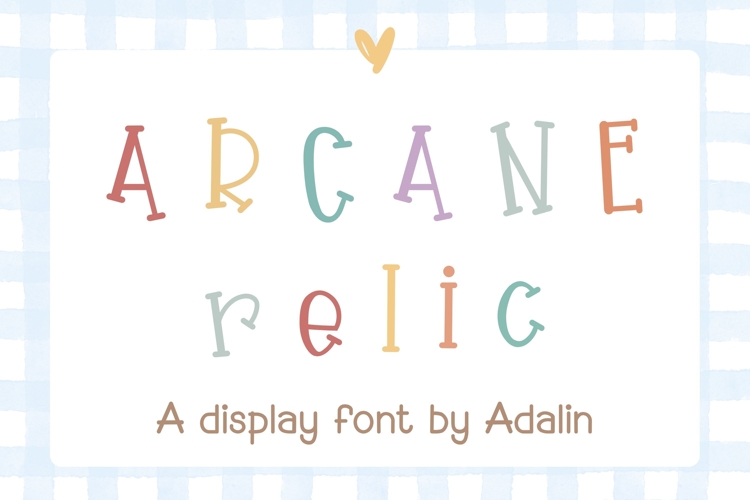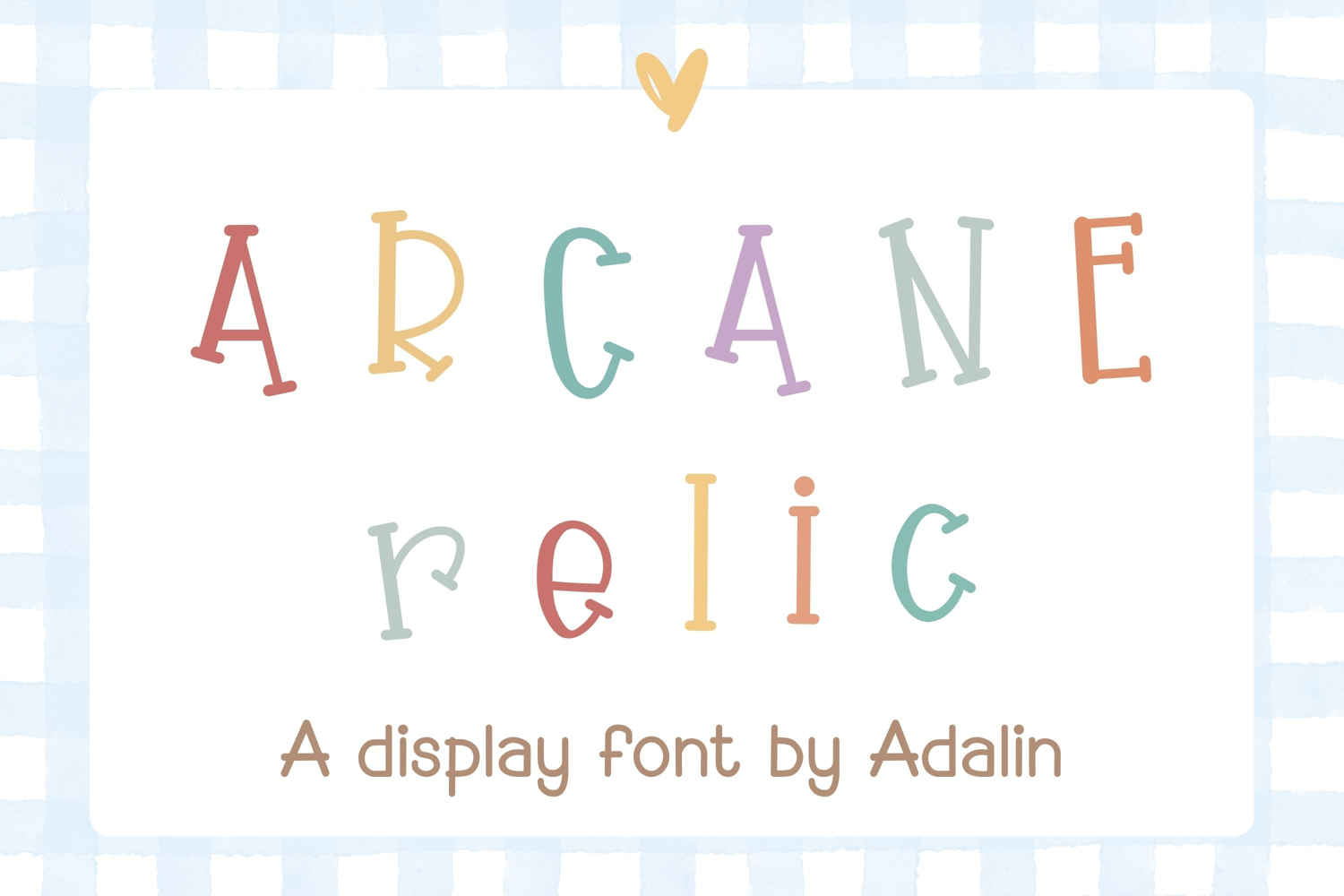
Arcane Relic is a whimsical handcrafted display font inspired by vintage storybooks and charming antique lettering. Its playful serif details, tall letterforms, and handcrafted feel make it perfect for creative projects that need warmth, personality, and a touch of magic. Ideal for children's books, nursery decor, invitations, branding, stickers, T-shirts, packaging, posters, and DIY crafts. Includes uppercase, lowercase, numbers, and punctuation for versatile design use.